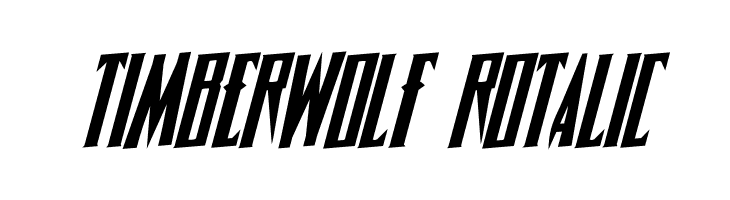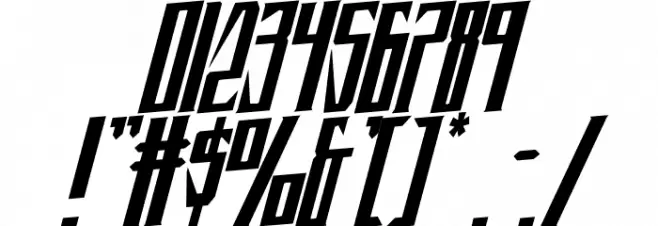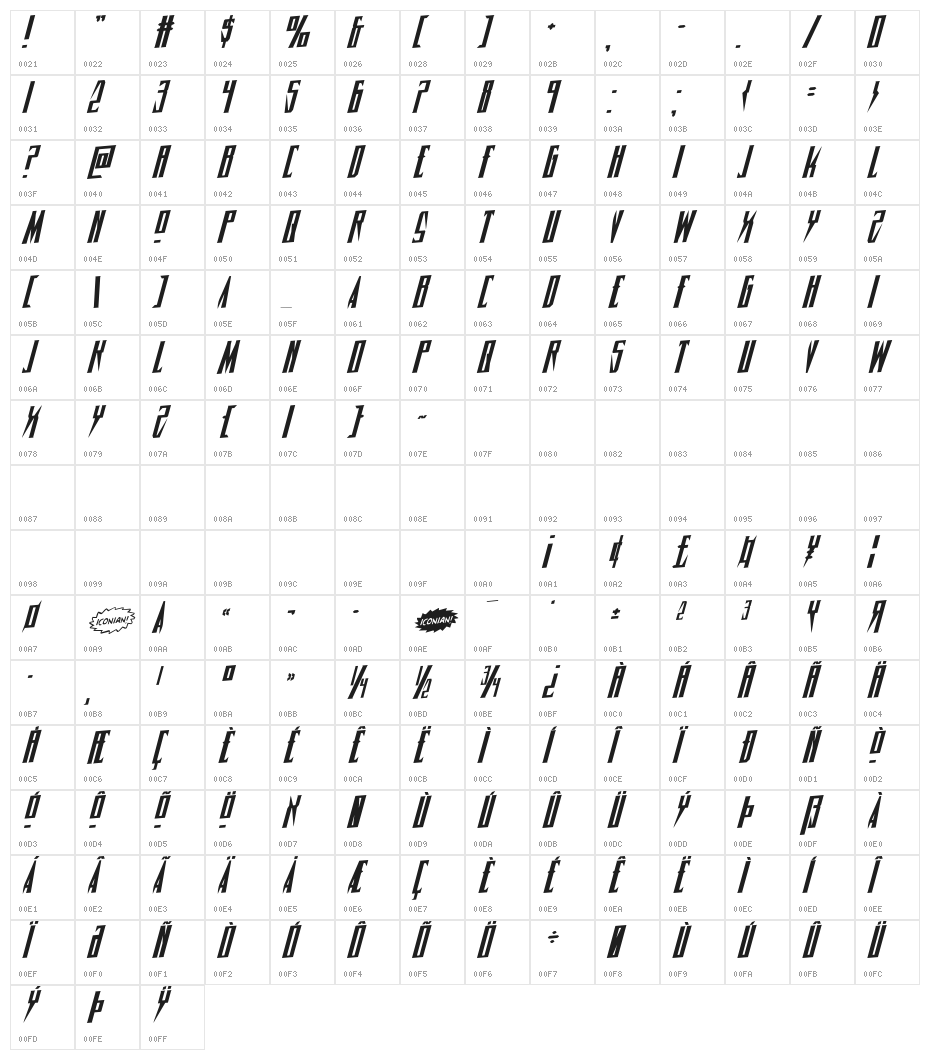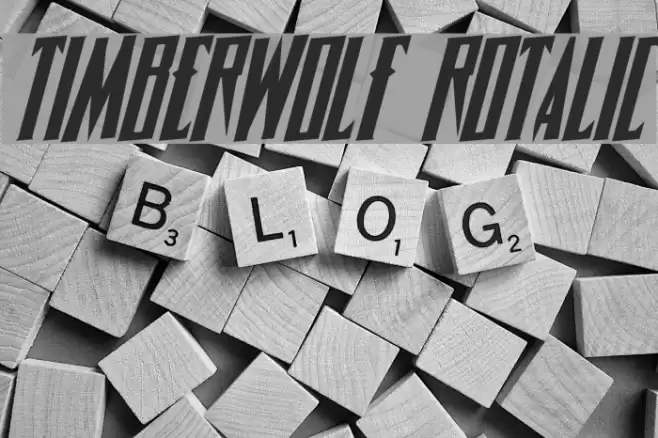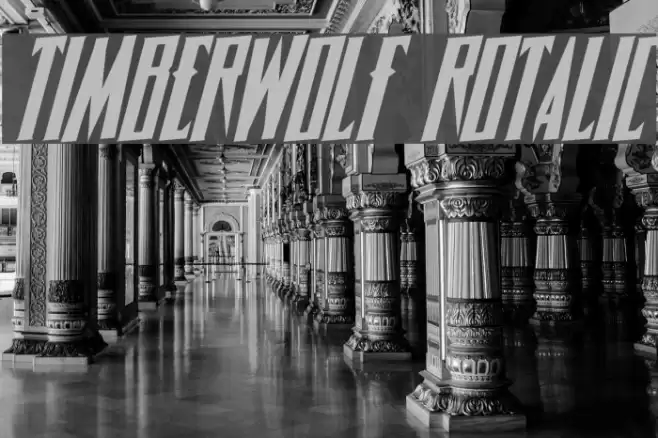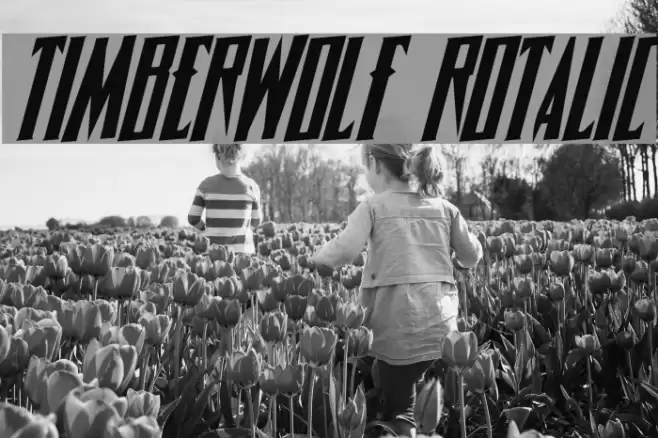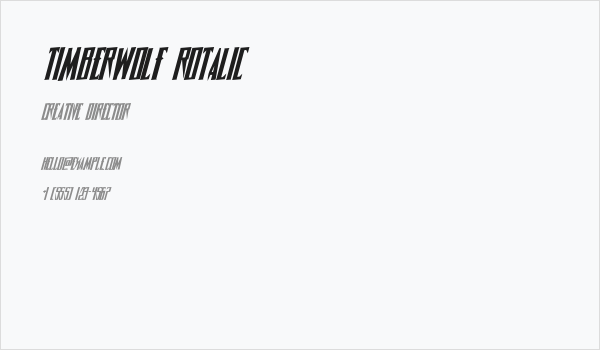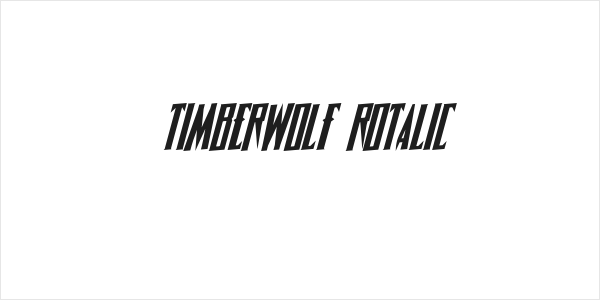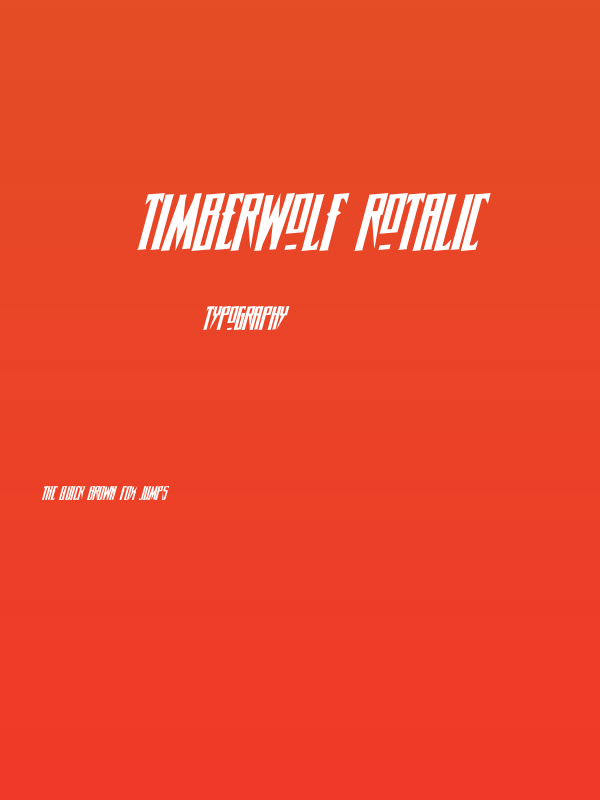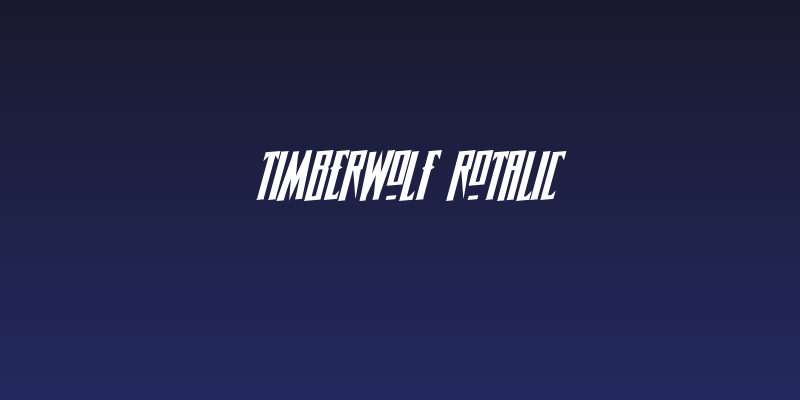
Timberwolf Rotalic Font
Timberwolf Rotalic Description
This font features a bold, italicized style with sharp, angular lines that create a dynamic and energetic appearance. The characters are elongated and slightly condensed, giving a sense of motion and speed. The uppercase and lowercase letters maintain a consistent slant, enhancing the italic effect. Numbers and special characters follow the same design principles, ensuring uniformity across all glyphs. The high contrast between thick and thin strokes adds to the dramatic look, making it suitable for attention-grabbing designs.